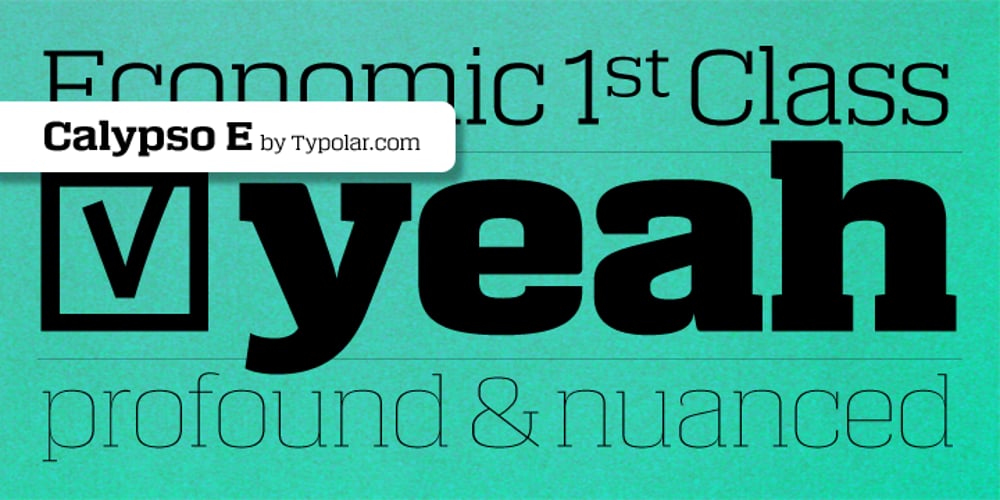
Calypso E Font Family was designed by Jarno Lukkarila and published by Typolar. Calypso E contains 26 styles and family package options. Founded on a rigid structure of modernist type, Calypso E has a determined tone without an authoritative tang. It is an updated interpretation of a Neo-grotesque model Egyptian with a hint of Humanist lightness in its forms. Seriously big x-height, square basic form and sturdy serifs create firm text regardless of the weight. This makes Calypso E well suited for various media, from sharp plotter images to low-res television screens. Calypso E includes four suitable body copy styles. Book, Regular, Normal and Medium can be applied according to, for example, the size of text and quality of paper. All styles in the family are equipped with an expanded character set, small caps, case sensitive forms, discretionary ligatures and much more to make even the most elaborate typographic detailing possible.